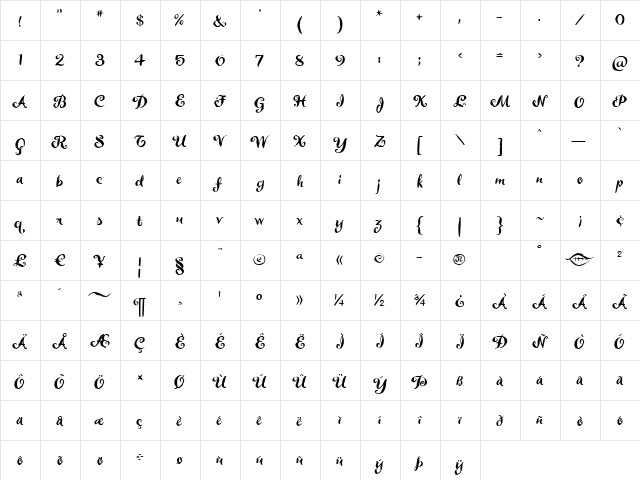
Delorita BV Regular
Design Context for Delorita BV Typeface
Delorita BV is a composed and adaptable typeface that performs quietly and consistently across a wide range of design contexts.